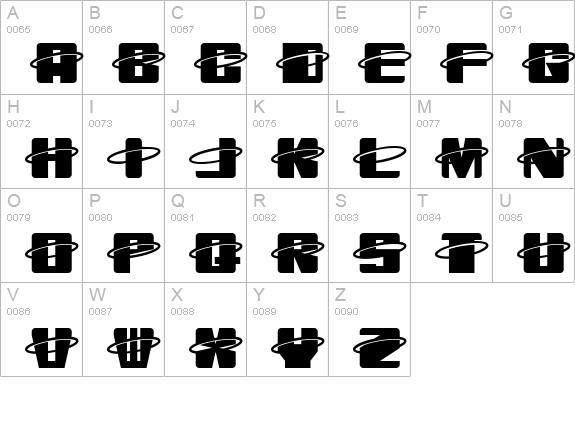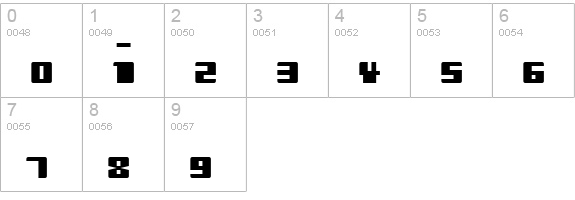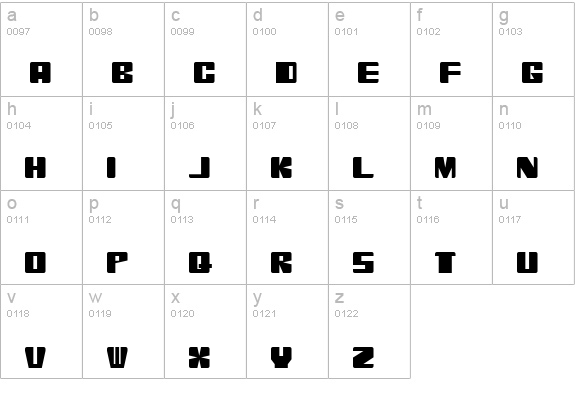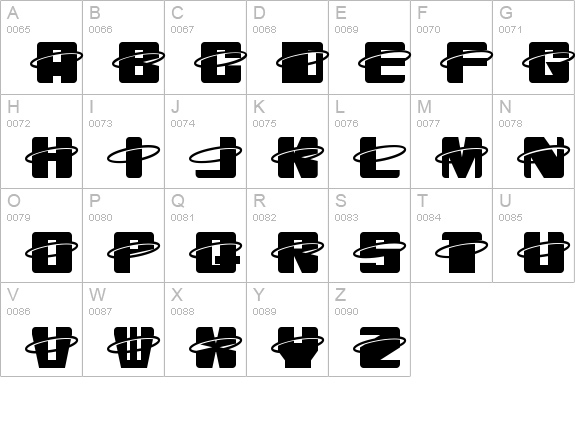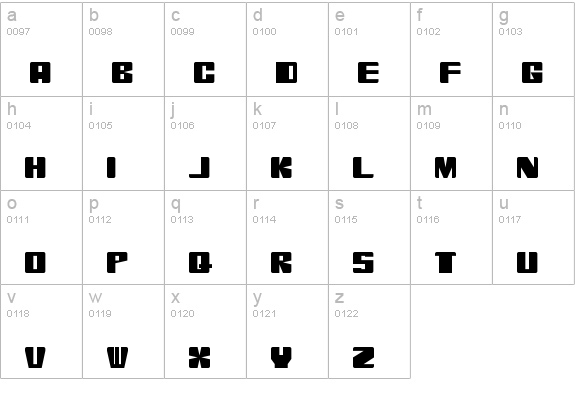
Orbitronio Font Details
Orbitronio font is a sleek and modern typeface that exudes a futuristic vibe. Its clean and geometric design makes it perfect for various design projects, including branding, advertising, web design, and more. With its sharp lines and attention-grabbing style, Orbitronio adds a touch of sophistication to any project. What sets Orbitronio apart is not only its striking appearance but also its versatility. It is available in a wide range of weights and styles, allowing designers to experiment and create unique combinations that suit their specific needs. Whether you're aiming for a bold and impactful look or a more subtle and elegant feel, Orbitronio has got you covered. One of the best things about Orbitronio font is that it is free. Yes, you read that right! This amazing typeface is freely available to download at FontsMarket.com. Now you can elevate your designs without breaking the bank. With Orbitronio, you can unleash your creativity and bring your ideas to life without worrying about licensing fees. So why wait? Start exploring the possibilities with Orbitronio font today. Download it for free at FontsMarket.com and take your designs to new heights. Whether you're a seasoned designer or just starting out, Orbitronio is the perfect addition to your font collection. Don't miss out on this opportunity to elevate your designs and make them truly stand out.